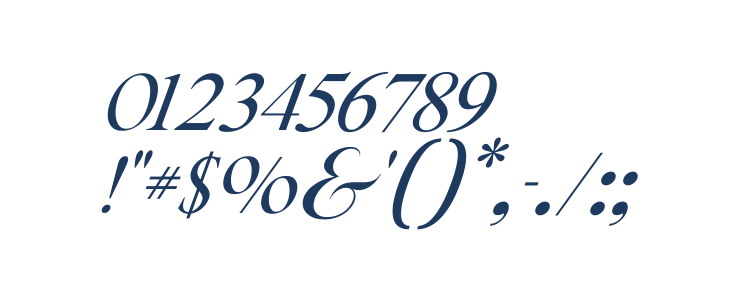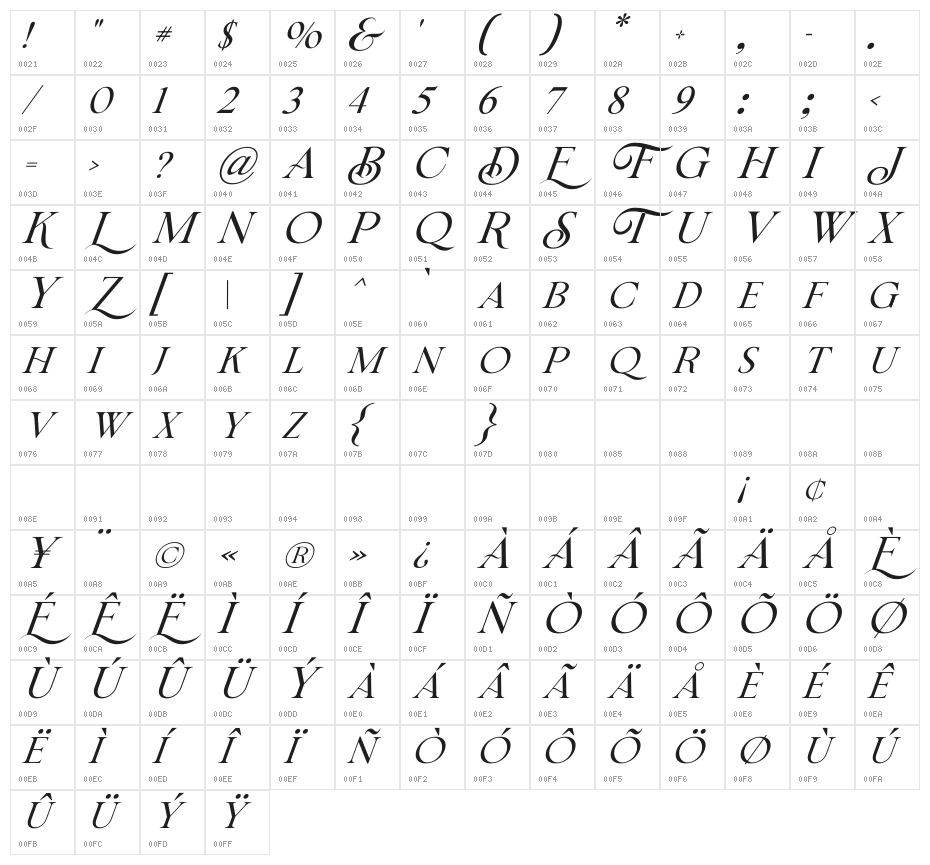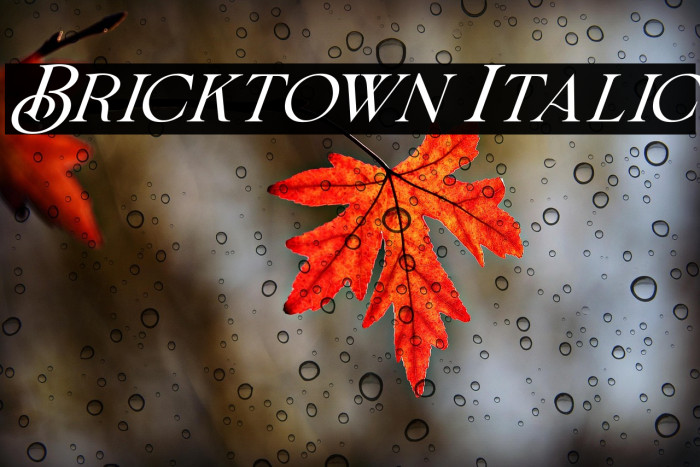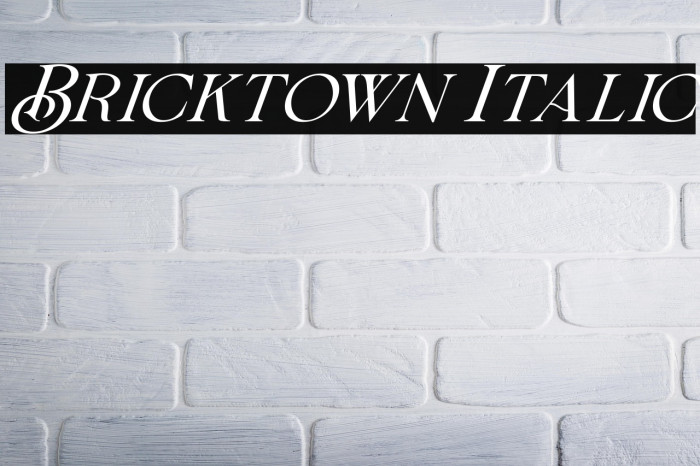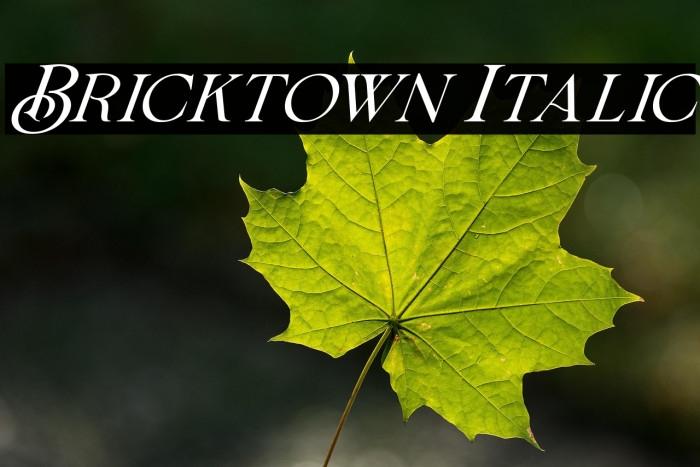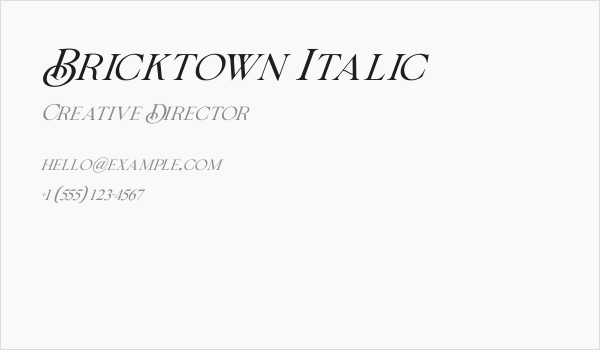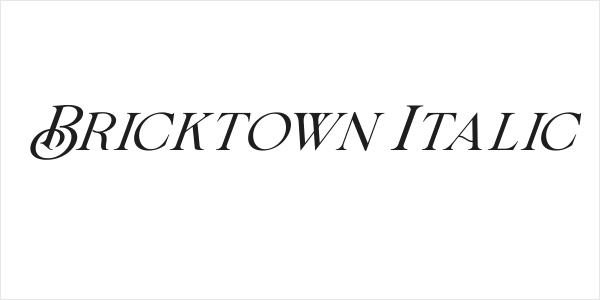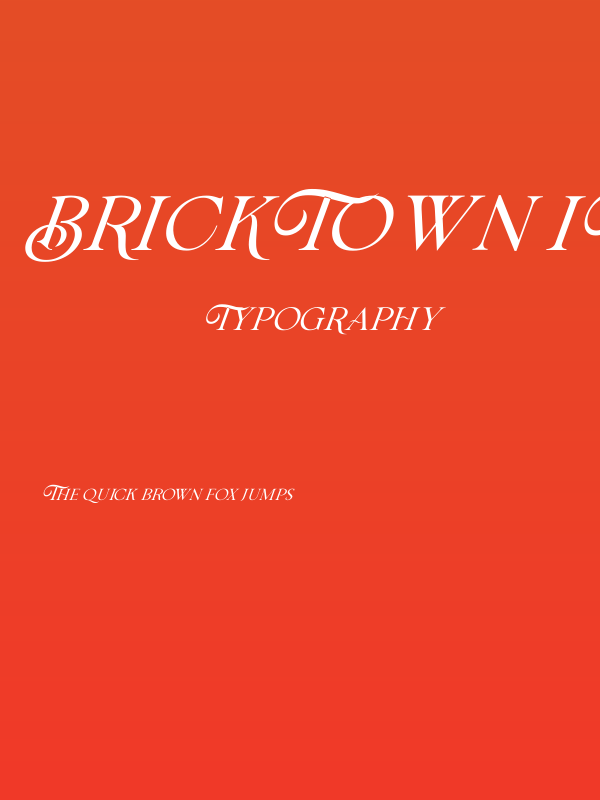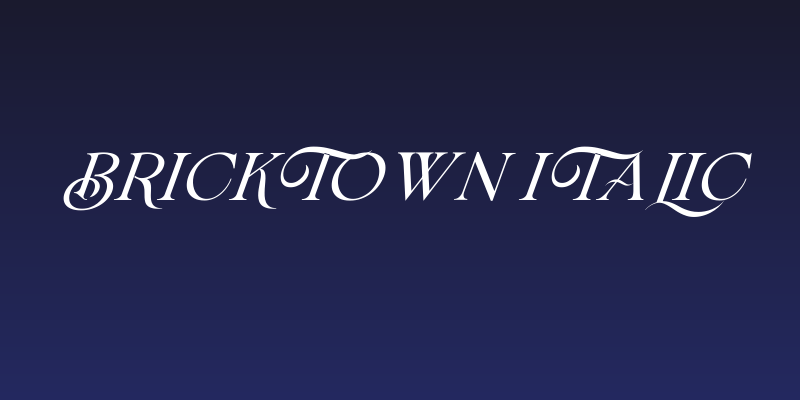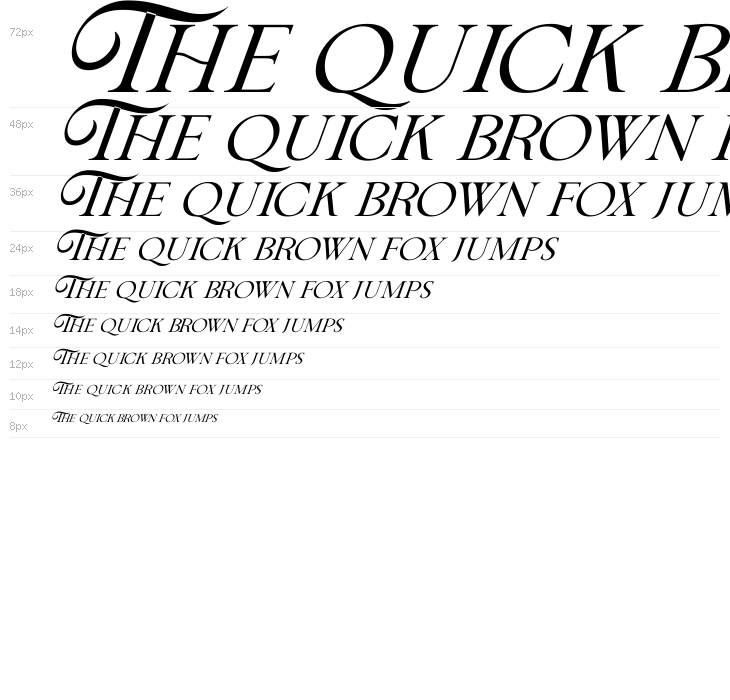
Bricktown Italic Font
Bricktown Italic Description
This elegant typeface features a sophisticated italic style with a flowing, cursive design. The uppercase letters exhibit a graceful slant with distinctive swashes, particularly noticeable in characters like 'B', 'D', and 'R'. The lowercase letters maintain a consistent italic angle, offering a seamless and fluid appearance. The numerals are stylishly curved, complementing the overall aesthetic. Special characters are crafted with the same attention to detail, ensuring a cohesive look across all glyphs. This font is ideal for projects requiring a touch of elegance and sophistication.
| Use Case | Logos, Invitations, Editorial Design |
| Proposed Projects | Ideal for wedding invitations, luxury branding, elegant signage, and sophisticated editorial design. |